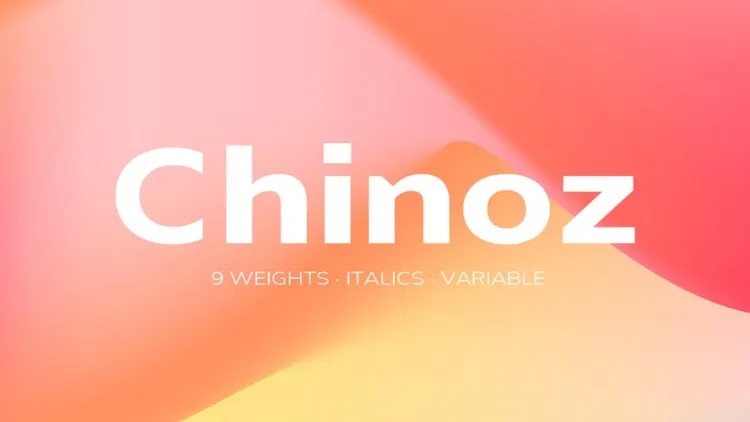
Chinoz Font Family
Chinoz Font
Chinoz is a free sophisticated sans serif font family created by Tapiwanashe Sebastian Garikayi with genuine neo-grotesque and neutral shapes. The font family includes 9 weights with corresponding Italics and variable font. Chinoz is a versatile typeface intended for use in every situation, from editorial design to branding.
Chinoz Sans Serif Font Family